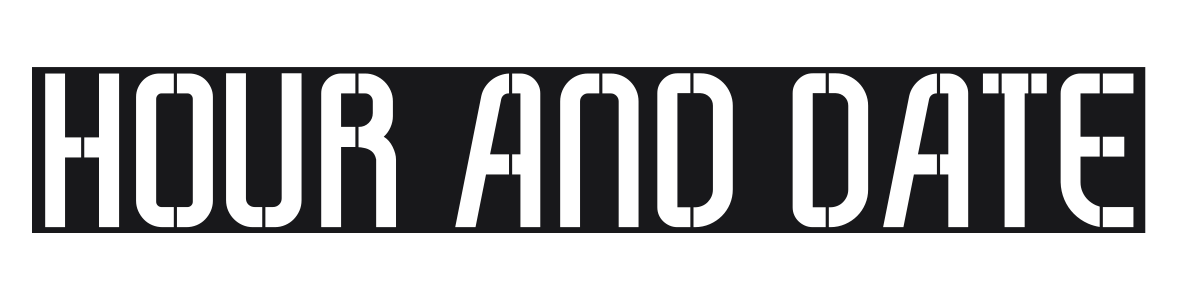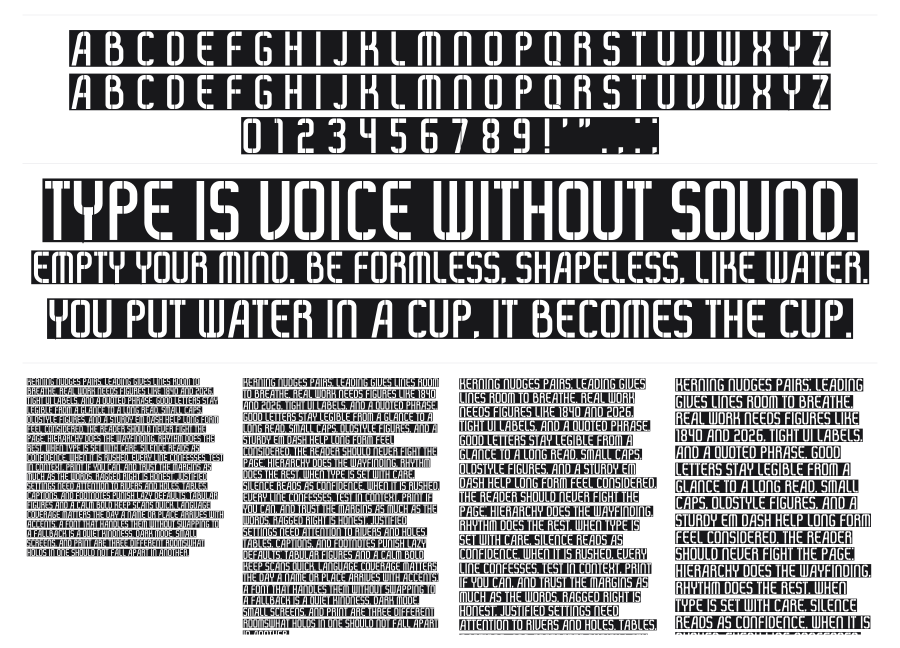
Hour And Date
Hour And Date is a heavy condensed stencil face built from rigid rectangular segments that recall train departure boards or military stenciling. Horizontal cuts slice through every stem and bar, giving the characters a clock-display rhythm that justifies the name. It commands attention at large sizes and suits any context that needs a strong industrial or urban voice.